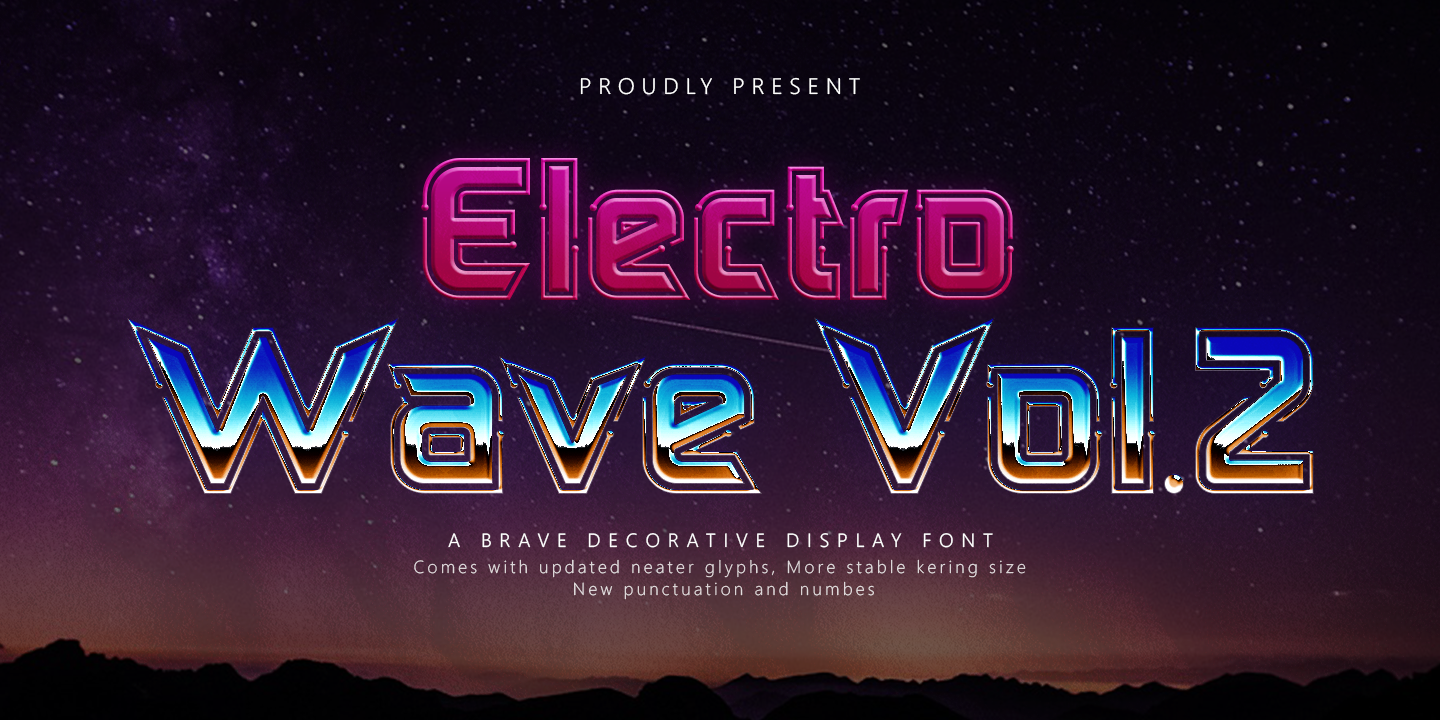
Electro Wave Vol.2 Font is perfect for electronic music branding, nightclub event posters, DJ logos, techno festival graphics, neon-themed designs, cyberpunk aesthetics, gaming interfaces, and futuristic club promotions that require an electrifying digital aesthetic.
This font is exciting because it pulsates with electronic energy through its dynamic letterforms that capture the rhythm and intensity of modern electronic music culture. The cutting-edge character design embodies the fusion of digital technology and musical creativity, making it perfect for brands seeking to connect with the vibrant electronic music community and nightlife scene.
Electro Wave Vol.2 Font belongs to the futuristic display font family, featuring electronic styling and wave-inspired elements that enhance its authenticity for music industry and entertainment-focused design applications.
Whether you're creating electronic music festival branding or high-energy nightclub graphics, Electro Wave Vol.2 Font Free Download delivers maximum impact and sonic visual power. This typeface represents the evolution of digital music culture typography, combining artistic innovation with the raw energy of electronic beats. The font's electrifying presence excels in headlines, logos, and promotional materials, providing optimal readability while maintaining its energetic character that amplifies any design with electronic intensity across print and digital media platforms.